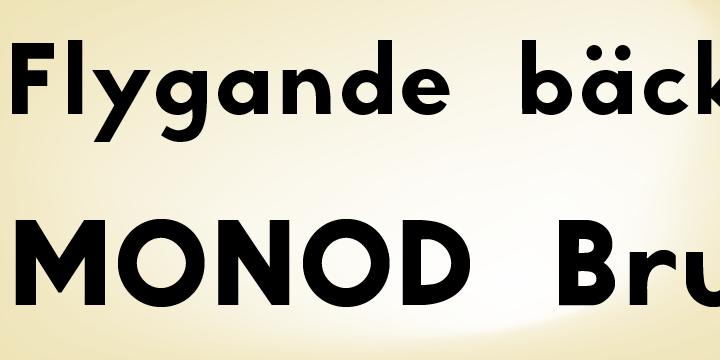
This distinctive typeface is an excellent selection for projects that require a unique blend of modern sophistication and a touch of artistic flair. Imagine it gracing the covers of contemporary art magazines, providing a bold statement for fashion editorials, or giving an exclusive feel to high-end product packaging. Monod Brun Font is also perfectly suited for designing striking website headers, crafting innovative branding for luxury goods, or creating memorable titles for avant-garde films. Its unconventional yet balanced letterforms make it an ideal choice for any design seeking to convey creativity, exclusivity, and a forward-thinking aesthetic, such as gallery exhibits, abstract art portfolios, or modern interior design branding.
What makes Monod Brun Font so exciting? It challenges traditional typographic norms while maintaining a surprisingly harmonious visual appeal. The font often features unique character shapes, unexpected ligatures, or a distinctive rhythm that sets it apart from more conventional typefaces. This font doesn’t just convey text; it presents it as a work of art, designed to intrigue and engage the viewer. It’s engineered to make a strong visual impact, ensuring your content is not only read but also remembered for its innovative presentation. The inherent artistic quality and contemporary feel of its letterforms make it particularly effective for brands that champion individuality, cutting-edge design, and a sophisticated, modern identity.
The Monod Brun Font family typically offers a range of weights and styles to ensure comprehensive design flexibility, allowing for a variety of visual expressions. You might find options such as Regular, Bold, and perhaps even an Outline or Display version, each meticulously designed to retain the font's characteristic artistic essence while providing different levels of visual prominence. These variations enable designers to create dynamic and layered compositions, using different weights for primary headlines, subheadings, and even subtle design accents. The availability of multiple stylistic options ensures that Monod Brun Font can be seamlessly integrated into diverse design applications, from impactful marketing campaigns to elegant digital presentations, all while maintaining its unique and memorable charm.
Whether you're creating a captivating art installation, launching an exclusive product line, or simply need a typeface that speaks to a sophisticated and creative audience, Monod Brun Font Free Download is an outstanding choice. Its distinctive charm and artistic versatility will ensure your designs always leave a lasting and impactful impression.